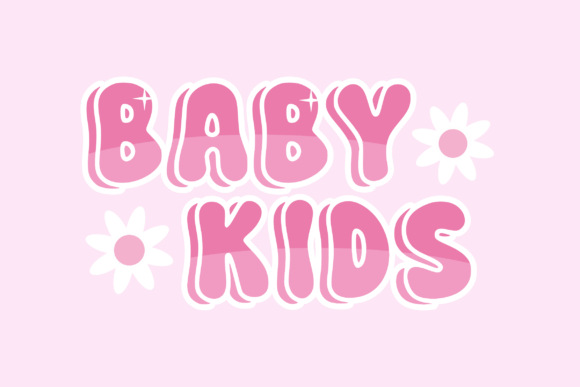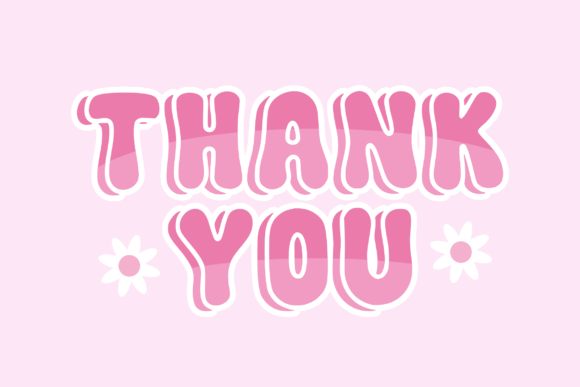
Introducing the Perfect Font for Your Next Creative Project
Have you ever stared at a blank canvas, trying to decide on the perfect font to bring your design to life? It’s that moment when inspiration strikes, and the perfect font pops into your head. For designers, this is the moment of truth – when creativity meets the perfect tool to unleash your vision. Enter the Bounce Font, a delightful bubble-ball typeface that’s designed to make your designs jump off the page.
This charming font is not just a pretty face; it’s a versatile tool that lends itself perfectly to various design applications, from apparel and accessories to animations and comic titles. The Bounce Font is a game-changer for designers who want to add a touch of whimsy and personality to their work. By incorporating this font into your design, you’ll be able to breathe life into your ideas and make them truly unforgettable.
Bounce Font Key Features
- Character Set: The font includes a wide range of characters, including uppercase and lowercase letters, numerals, punctuation marks, and special characters.
- Unique Characteristics: The font features a playful, bouncy design with rounded edges and subtle texture, making it perfect for creating eye-catching headlines and titles.
- Legibility: Despite its playful appearance, Bounce Font is highly legible and easy to read, even at small sizes, making it suitable for a wide range of applications.
- Style Variations: The font includes several style variations, including regular, bold, italic, and bold italic, allowing designers to add depth and visual interest to their designs.
Bounce Font Review
I recently had the chance to work with the Bounce Font, and I have to say it’s been a wild ride. Here’s my honest take on this quirky font.
- Unique Personality: The Bounce Font has a distinct, energetic vibe that’s perfect for adding some fun to your designs.
- Legibility: Despite its playful nature, the font is surprisingly easy to read, especially at larger sizes.
- Customization Options: The Bounce Font comes with a range of styles and weights, allowing you to tailor its look to suit your project’s needs.
- Formality: The Bounce Font may not be the best choice for formal or professional projects, as its playful nature may come across as unprofessional.
- Consistency: The font’s irregularities can sometimes make it difficult to maintain consistent line spacing and alignment.
The Bounce Font is a solid choice for designers looking to add some personality to their projects. While it may not be the most versatile font, its unique charm and customization options make it a great fit for creative and playful designs. Just be aware of its limitations and use it judiciously to avoid any potential issues.
Tips for Getting the Most Out of Bounce Font
To get the most out of Bounce Font, try the following:
- Use Bounce Font in combination with other fonts to create a unique and eye-catching design.
- Take advantage of Bounce Font’s playful and energetic feel to create engaging and attention-grabbing content.
Bounce Font is perfect for:
- Choose a bright, contrasting background color to make the font stand out.
- Apply a gradient effect to the background to add a sense of movement.
- Use a large font size and bold weight to emphasize the quote.
- Use geometric shapes, such as circles or triangles, to create a sense of movement around the quote.
- Add a drop shadow effect to give the quote a sense of depth.